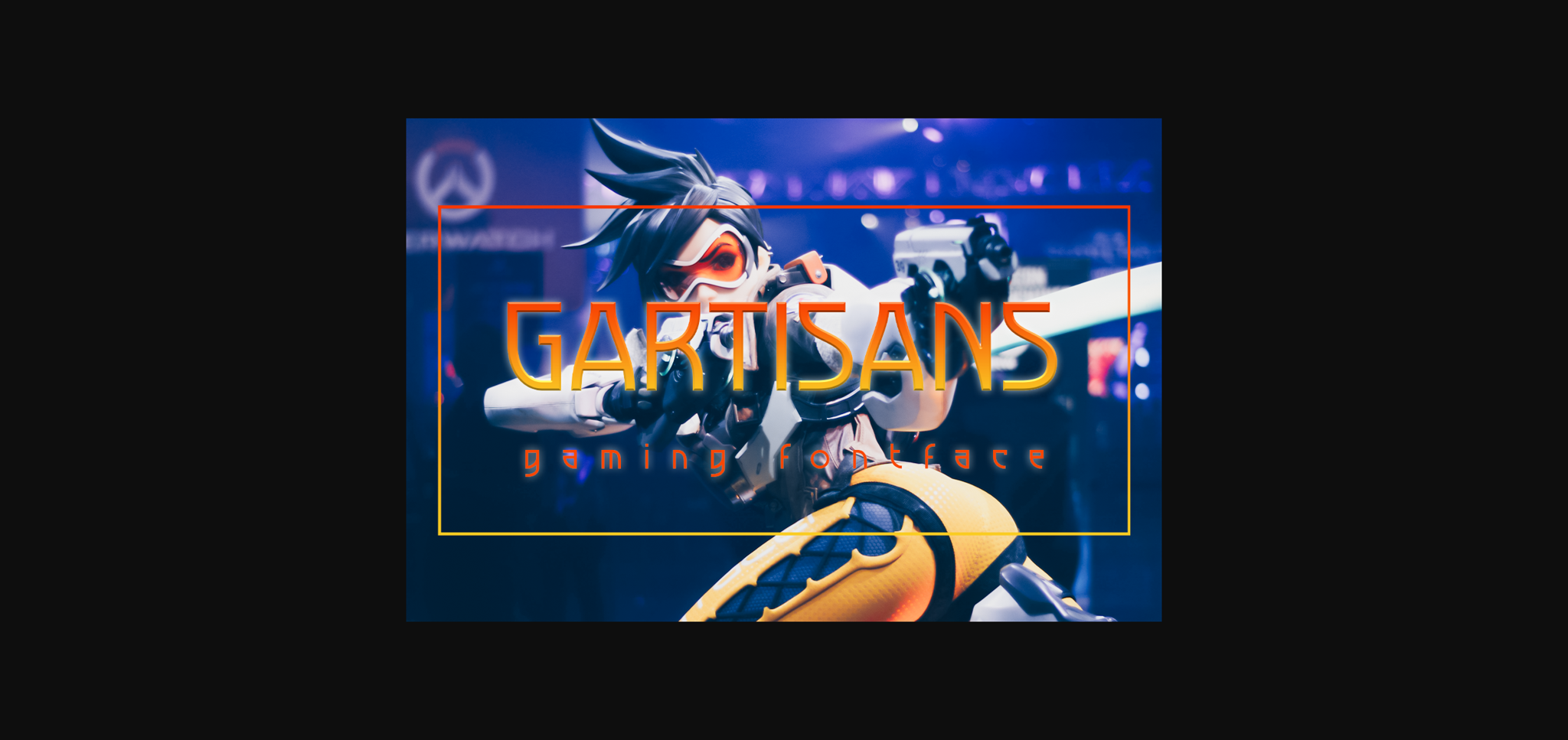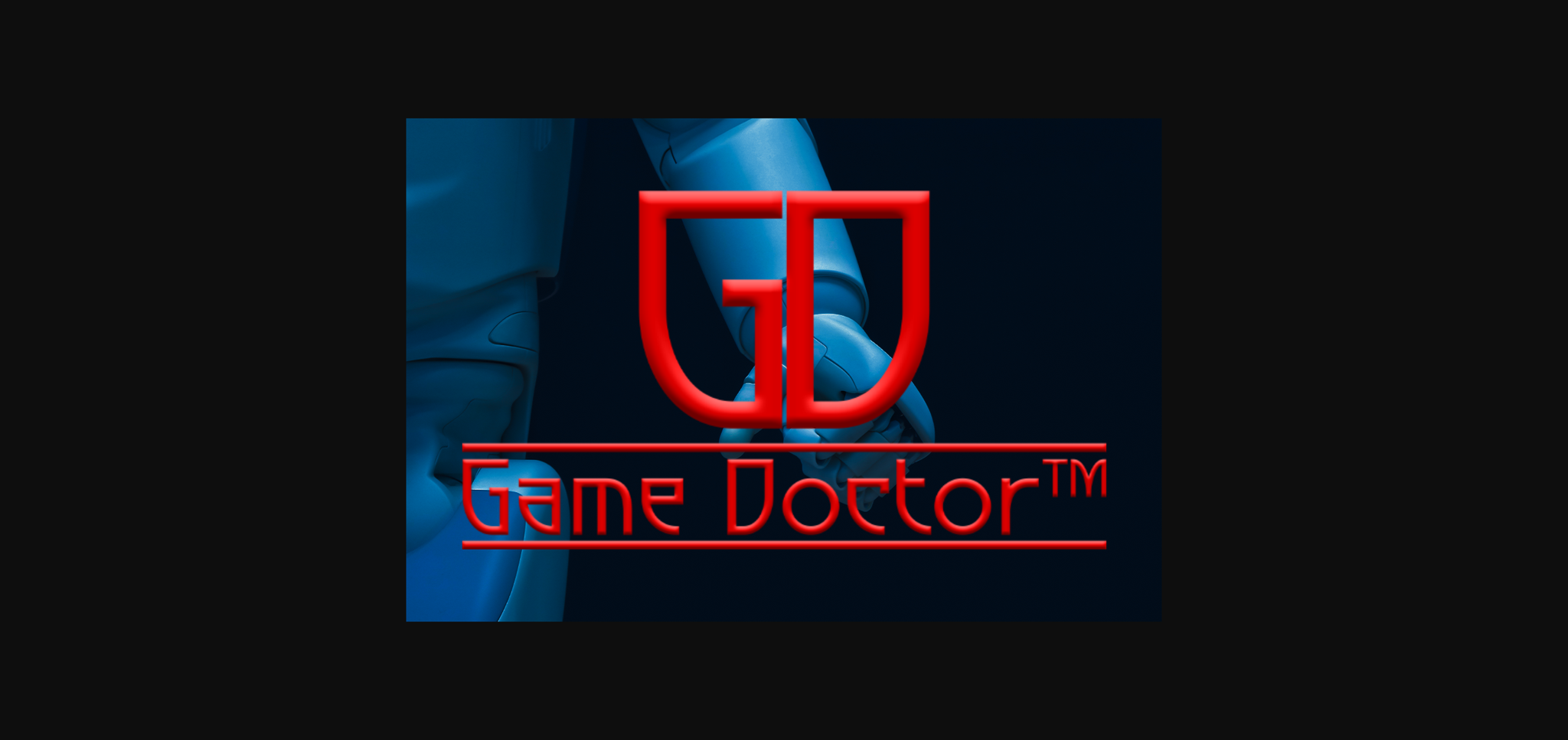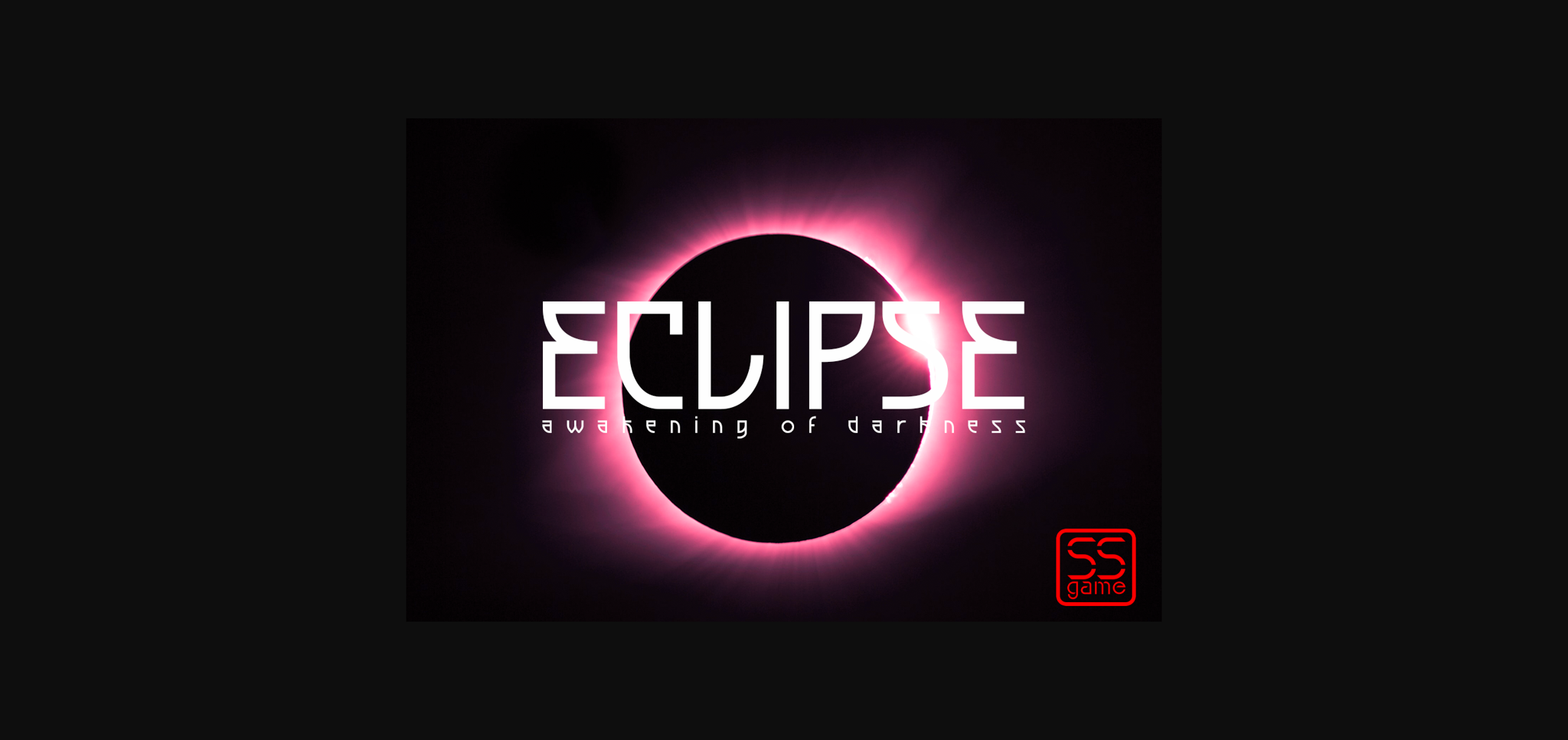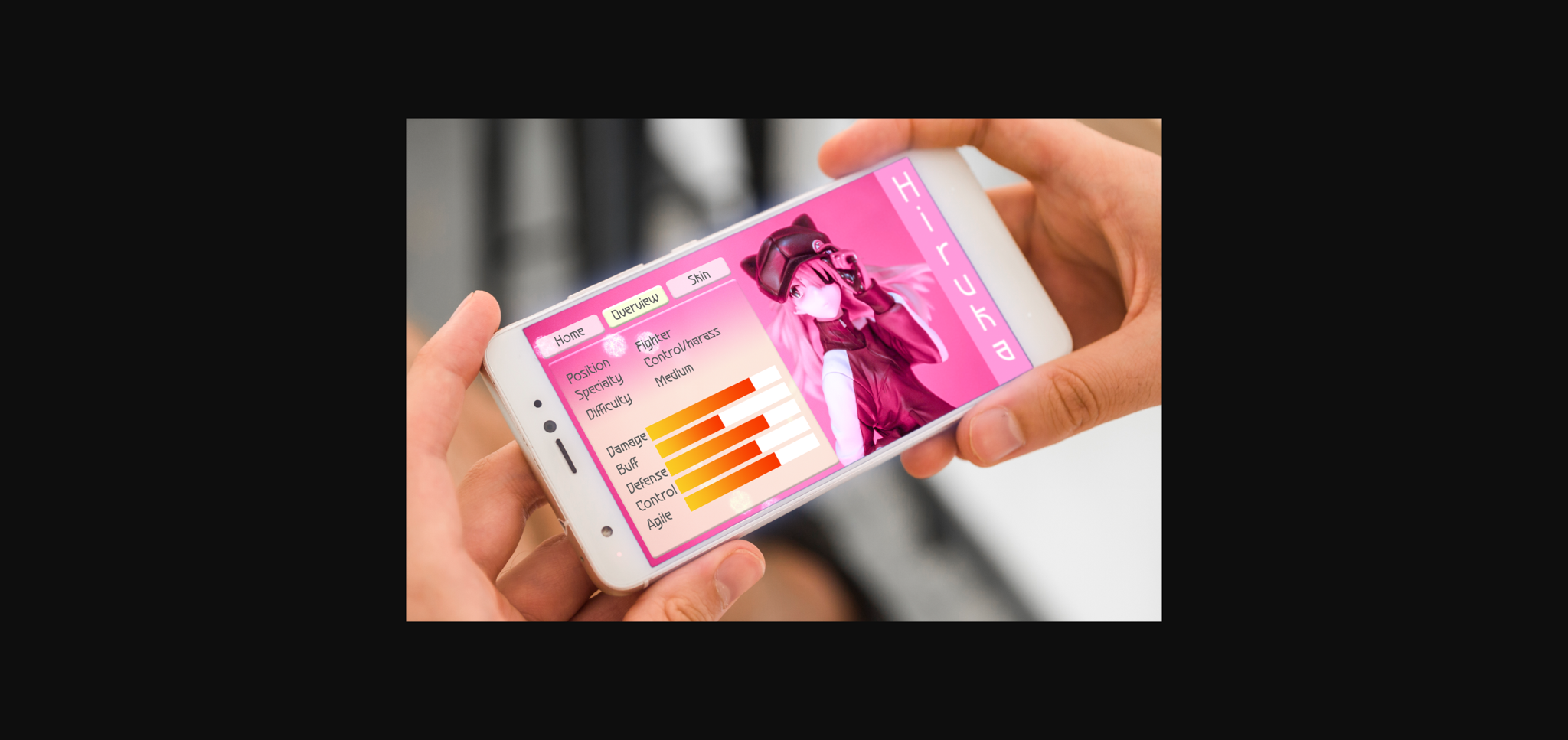
About Gartisans Font
Gartisans is a modern and elegant sans serif font, carefully handcrafted to become a true favorite. Its casual charm makes it appear wonderfully down-to-earth, readable and, ultimately, incredibly versatile. Gartisans will look outstanding in any context, whether it’s being used on busy backgrounds or as a standalone headline!